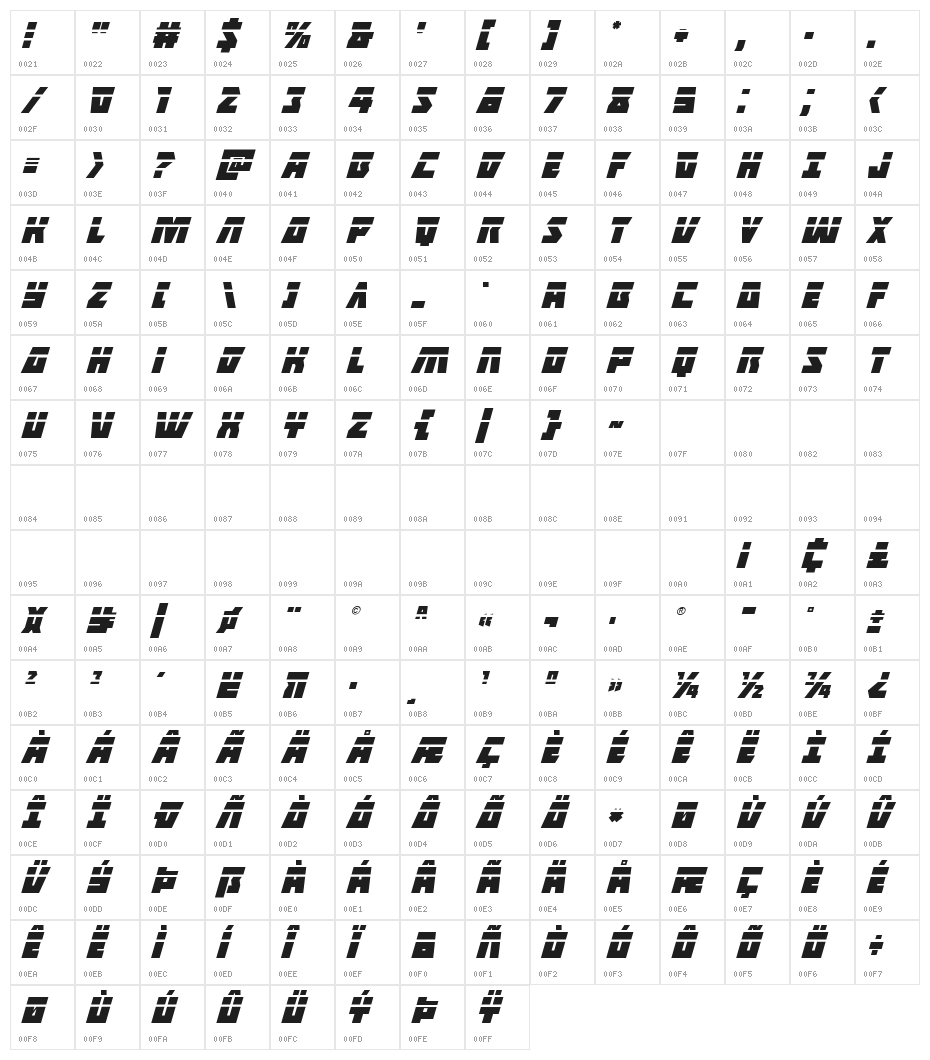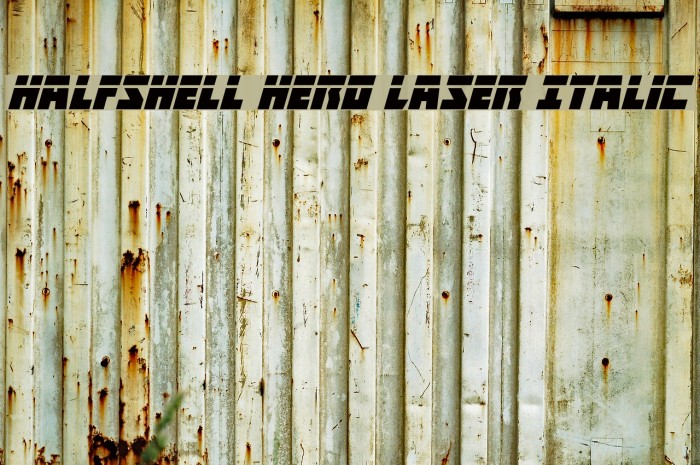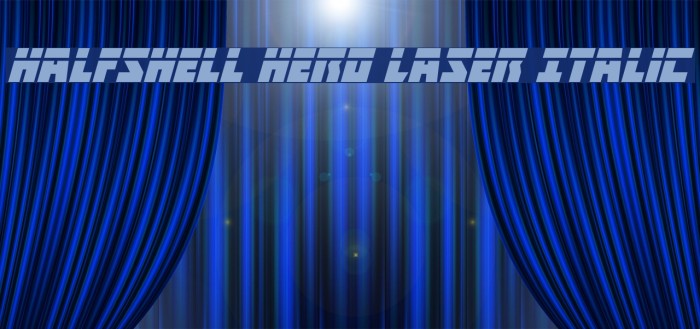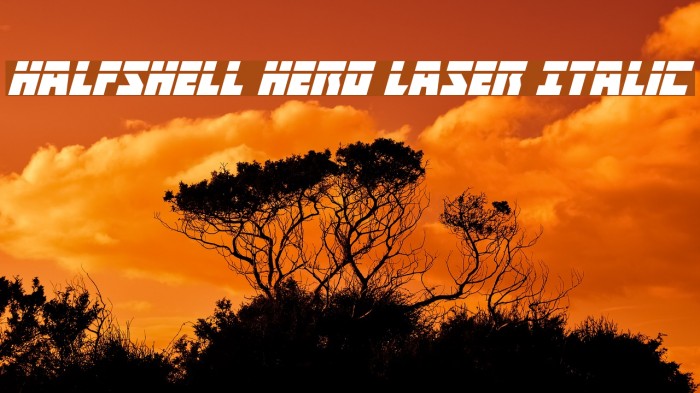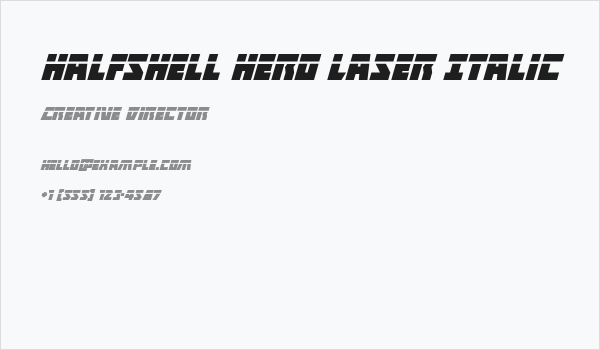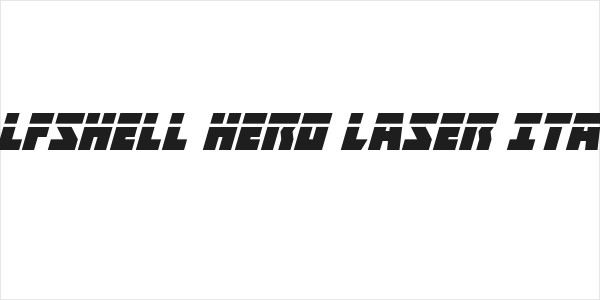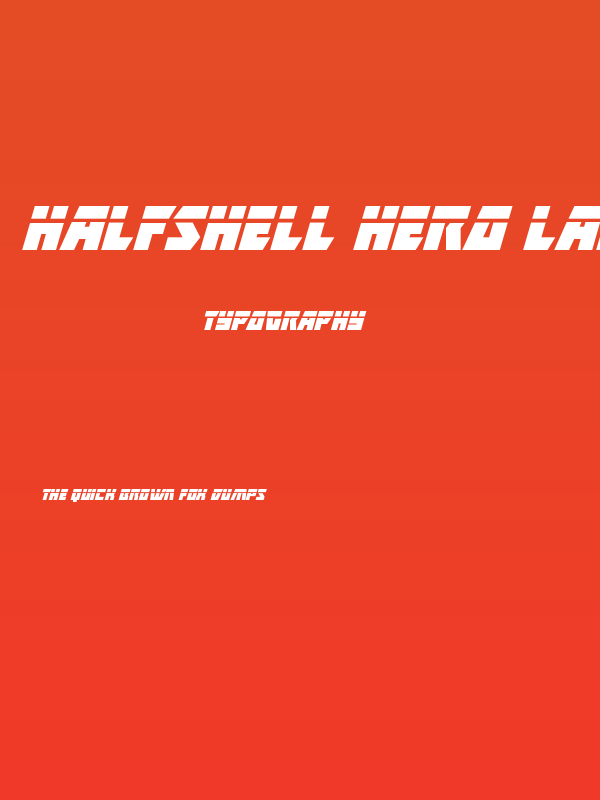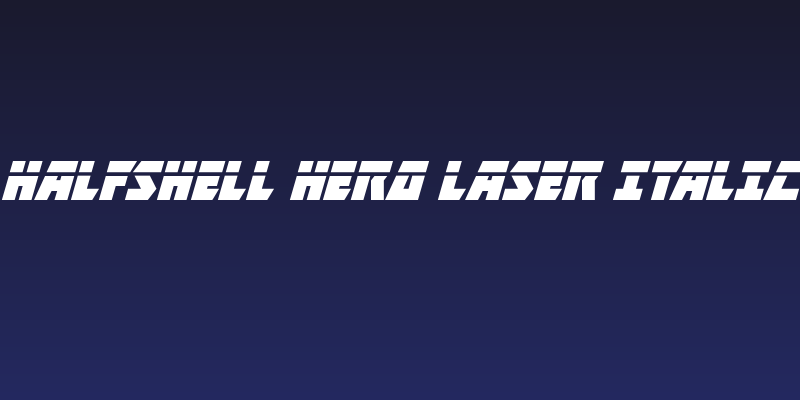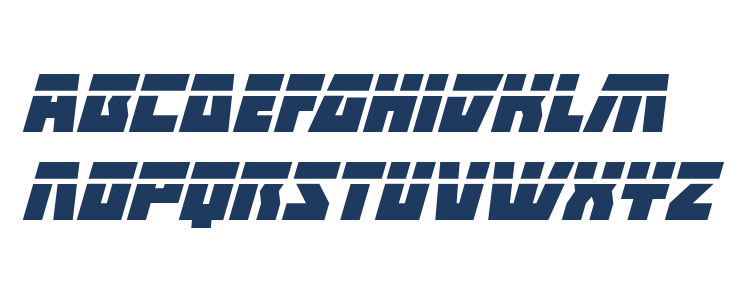
Halfshell Hero Laser Italic Font
Halfshell Hero Laser Italic Description
This font features a bold, futuristic design with sharp angles and a distinct italic slant, giving it a dynamic and energetic appearance. The characters are heavily stylized with a blocky, geometric structure that suggests movement and speed. The uppercase and lowercase letters maintain a consistent style, with the lowercase being slightly smaller but equally impactful. Numbers and special characters are designed to match the overall aesthetic, ensuring uniformity across all text. The font's boldness and unique style make it stand out, ideal for projects that require a modern and edgy look.
| Proposed Projects | Ideal for sci-fi themed designs, video game titles, tech branding, and futuristic posters. |